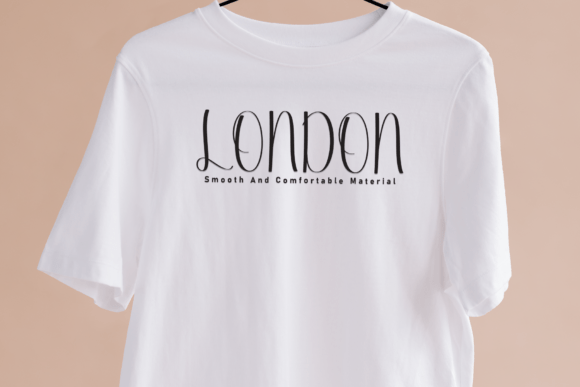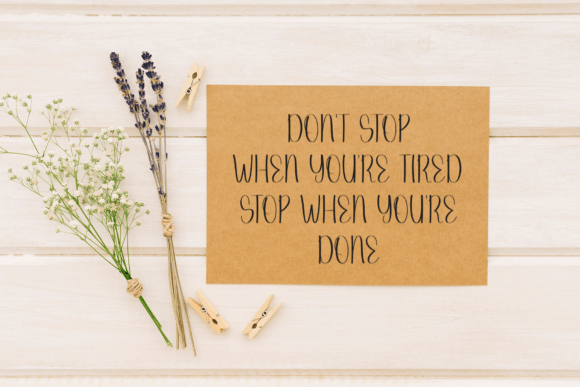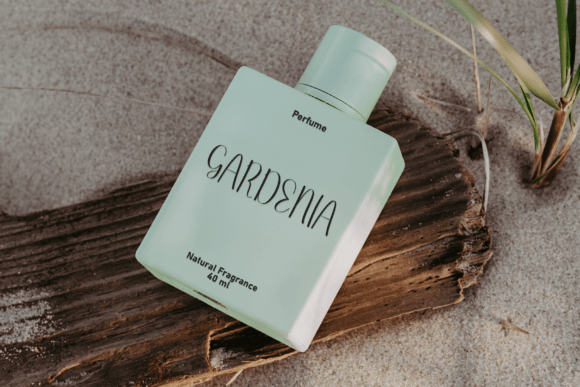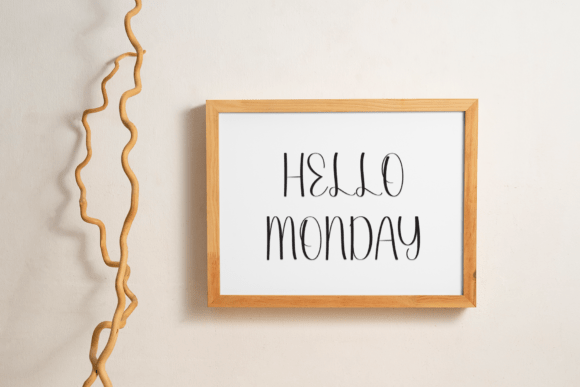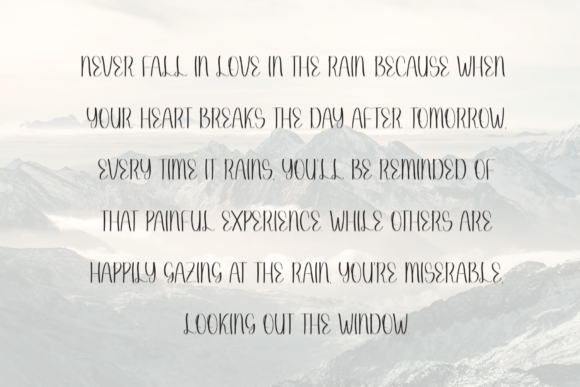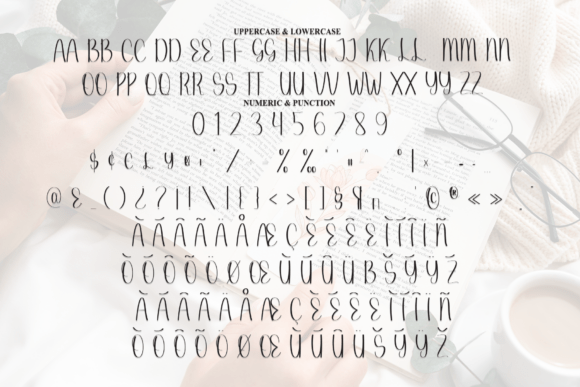
Introducing Bookmark Font: The Perfect Blend of Simplicity and Friendliness
In the world of typography, a good font can make all the difference in the success of a design project. For designers and crafters looking for a font that combines simplicity with a friendly, approachable vibe, Bookmark Font is an excellent choice. This casual and neat display font is designed to capture the essence of modern handwritten typography with a polished finish, making it ideal for a wide range of applications.
Clean Lines, Balanced Letterforms, and Subtle Rounded Edges
One of the standout features of Bookmark Font is its clean lines, balanced letterforms, and subtle rounded edges. These design elements work together to create a font that is both visually appealing and highly legible. The clean lines provide a sense of clarity and precision, while the balanced letterforms ensure that the font is easy to read. The subtle rounded edges add a touch of warmth and friendliness, making the font perfect for designs that require a personal and approachable feel.
Modern Handwritten Typography with a Polished Finish
Bookmark Font is inspired by modern handwritten typography, but with a polished finish that sets it apart from more traditional handwritten fonts. The font’s design is characterized by a sense of fluidity and movement, making it perfect for designs that require a sense of energy and dynamism. At the same time, the polished finish ensures that the font remains professional and sophisticated, making it suitable for a wide range of applications.
Ideal for Branding, Headlines, Packaging, and Digital Content
Bookmark Font is a versatile font that can be used in a variety of contexts. Its clean and simple design makes it perfect for branding, where a clear and concise message is essential. The font’s friendly and approachable vibe also makes it well-suited for headlines, where it can help to grab the reader’s attention. Additionally, the font’s polished finish makes it ideal for packaging, where a professional and sophisticated look is often required. Finally, the font’s digital-friendly design makes it perfect for use in digital content, such as blog posts, social media, and website headers.
Adding a Warm and Inviting Touch to Any Design
One of the key benefits of Bookmark Font is its ability to add a warm and inviting touch to any design. The font’s friendly and approachable vibe makes it perfect for designs that require a personal and relatable feel. Whether you’re designing a brand identity, creating a headline, or crafting a digital message, Bookmark Font can help to create a sense of connection and engagement with your audience.
Crispy Structure and Versatile Style
Bookmark Font is characterized by its crispy structure and versatile style. The font’s clean lines and balanced letterforms provide a sense of clarity and precision, while its subtle rounded edges add a touch of warmth and friendliness. The font’s versatile style makes it perfect for a wide range of applications, from branding and headlines to packaging and digital content.
Delivering Clarity and Charm in Equal Measure
In conclusion, Bookmark Font is a exceptional display font that delivers clarity and charm in equal measure. Its clean lines, balanced letterforms, and subtle rounded edges make it perfect for designs that require a sense of simplicity and friendliness. With its polished finish and versatile style, this font is ideal for designers and crafters looking to add a warm and inviting touch to their designs. Whether you’re working on a branding project, creating a headline, or crafting digital content, Bookmark Font is an excellent choice.
Key Features of Bookmark Font
- Clean lines and balanced letterforms for clarity and precision
- Subtle rounded edges for a touch of warmth and friendliness
- Polished finish for a professional and sophisticated look
- Versatile style suitable for a wide range of applications
- Ideal for branding, headlines, packaging, and digital content
- Perfect for designs that require a sense of simplicity and friendliness
Overall, Bookmark Font is a fantastic addition to any designer’s font library. Its unique blend of simplicity and friendliness makes it perfect for a wide range of applications, from branding and headlines to packaging and digital content. With its polished finish and versatile style, this font is sure to become a go-to choice for designers and crafters looking to add a warm and inviting touch to their designs.